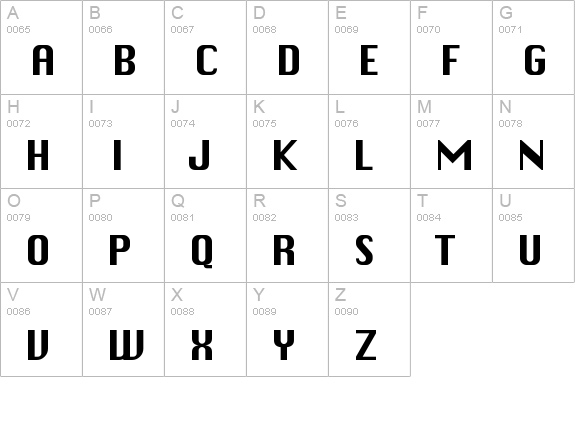
TR Clapton Font Details
TR Clapton font is a versatile and elegant typeface that combines classic elements with a modern twist. With its clean lines and sophisticated curves, this font is perfect for a wide range of design projects, from branding to editorial work. The timeless appeal of TR Clapton font makes it a popular choice for designers looking to add a touch of refinement to their creations. What's even better is that TR Clapton font is available for free download at FontsMarket.com. This means you can access this high-quality font at no cost, making it a valuable addition to your font library. Don't miss out on the opportunity to elevate your designs with TR Clapton font today!